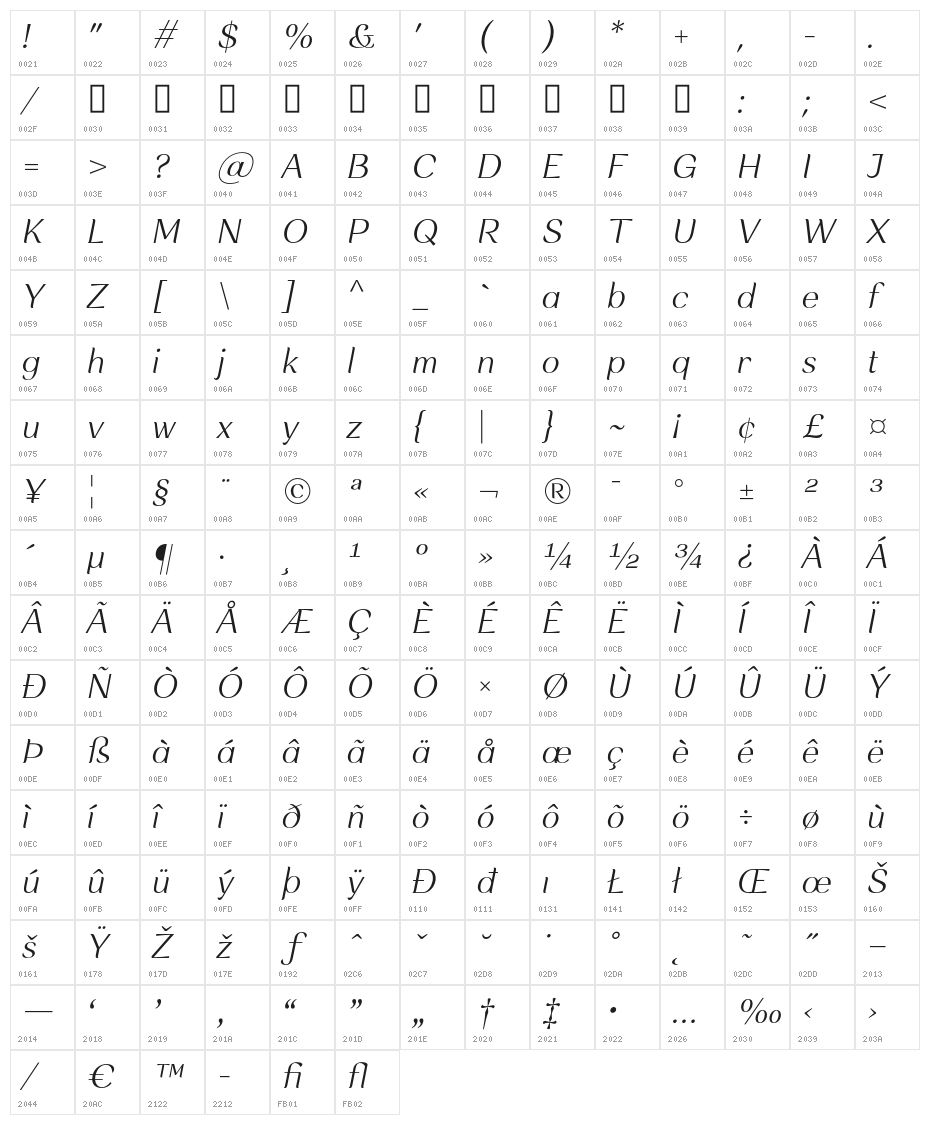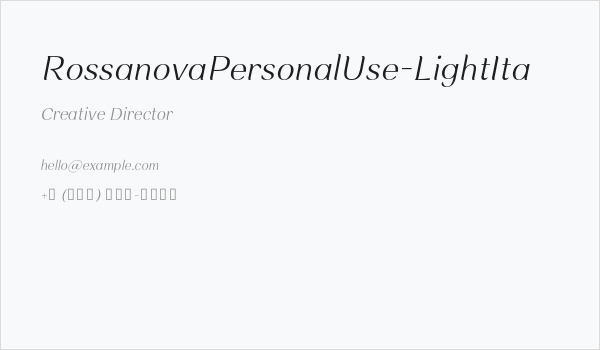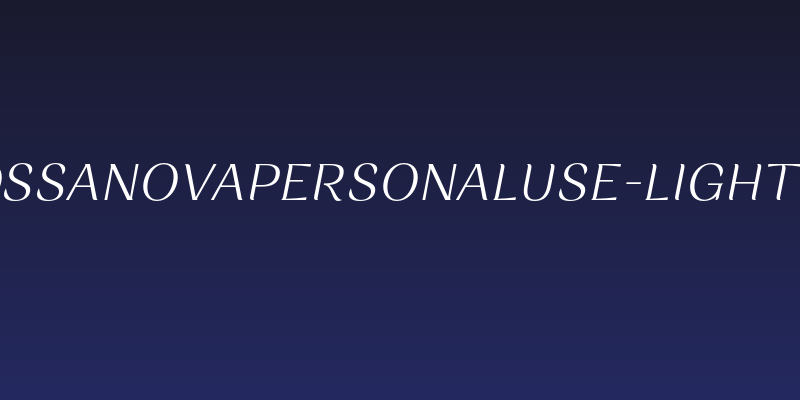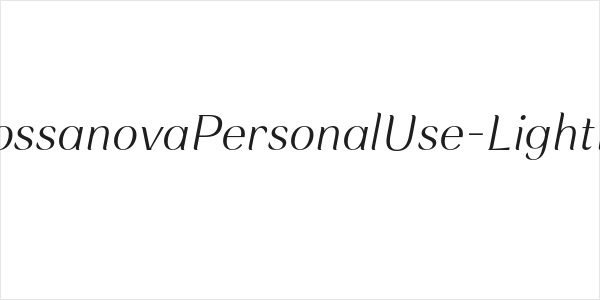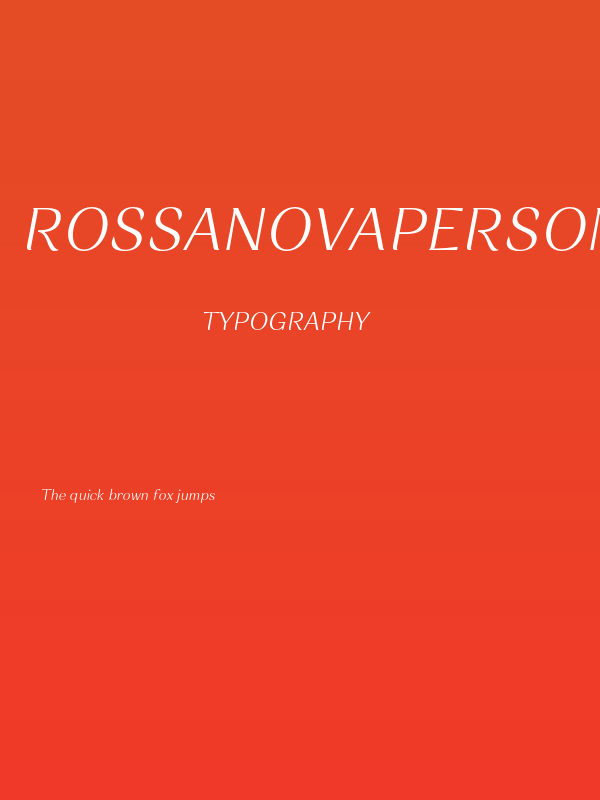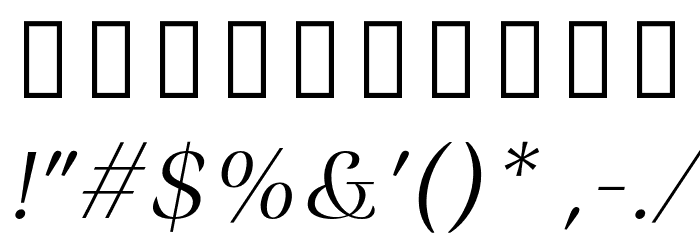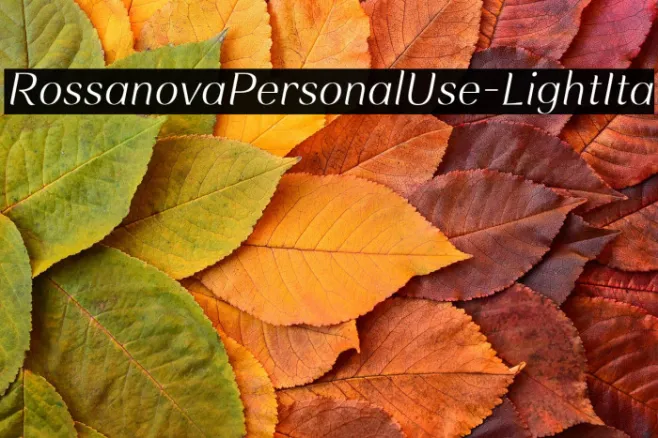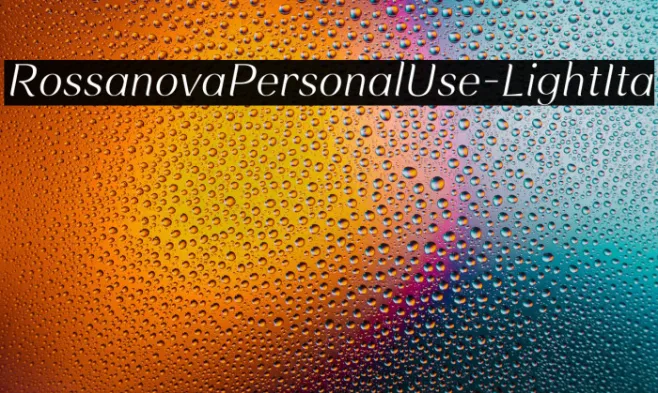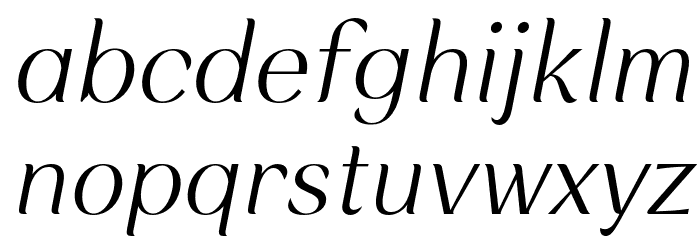
RossanovaPersonalUse-LightIta Font
RossanovaPersonalUse-LightIta Description
This elegant typeface features a refined and sophisticated design, characterized by its light and airy appearance. The letters are slightly slanted, giving it an italicized look that adds a touch of elegance and fluidity. The strokes are thin and delicate, contributing to a graceful and stylish aesthetic. The font maintains a consistent and harmonious flow, with smooth curves and clean lines that enhance readability. Its overall appearance is modern yet timeless, making it suitable for a variety of applications where a touch of class is desired.
| Use Case | Headlines, Invitations, Branding |
| Proposed Projects | Ideal for wedding invitations, luxury branding, fashion magazines, and elegant website headers. |